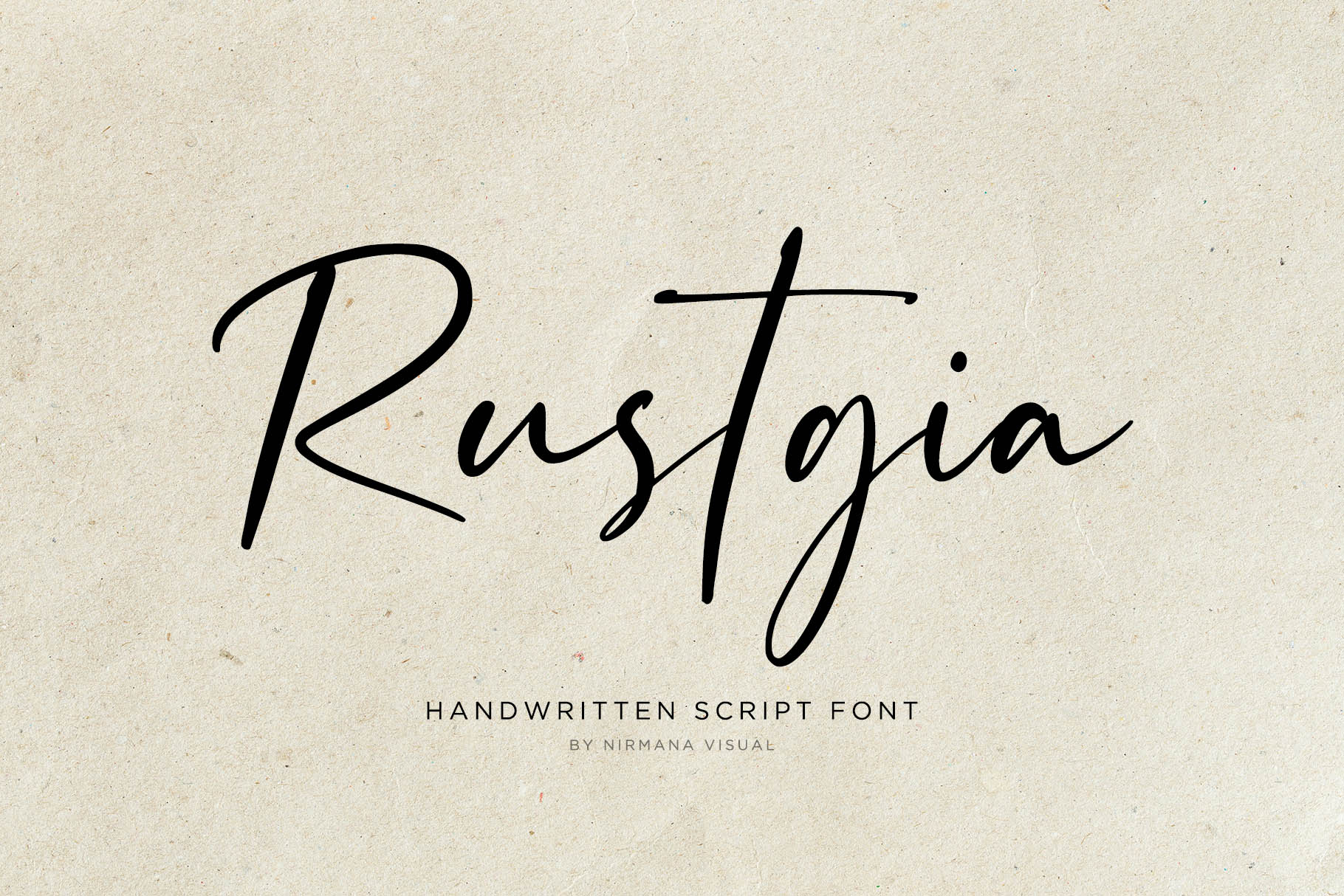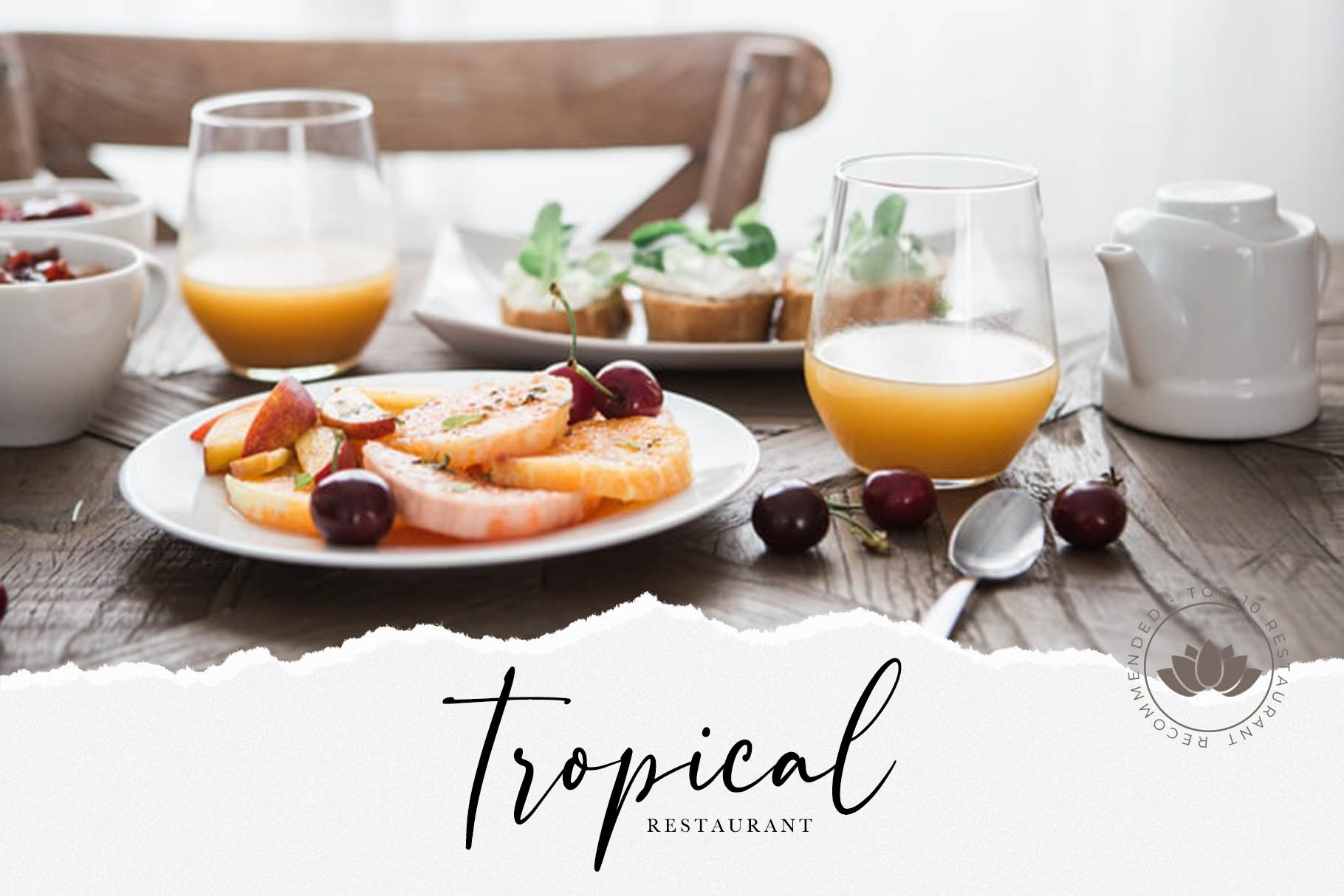
Rustgia is a fresh handwritten, elegant and natural feel character set.
Rustgia font includes a full set capital and lowercase letters, as well as multi-lingual support, currency figures, numerals, & punctuation.